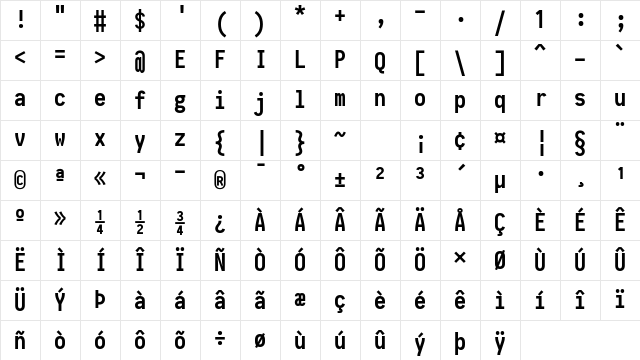
Iosevka Nerd Font Bold
Foundry: Belleve Invis
Designer: Belleve Invis
Complete Iosevka Nerd Font Bold glyph index. Displaying only characters natively supported by Iosevka Nerd Font Bold font.
Design Context for Iosevka Nerd Font
Iosevka Nerd Font is a composed and adaptable typeface that performs quietly and consistently across a wide range of design contexts. Its bold stroke weight gives it real presence on the page.